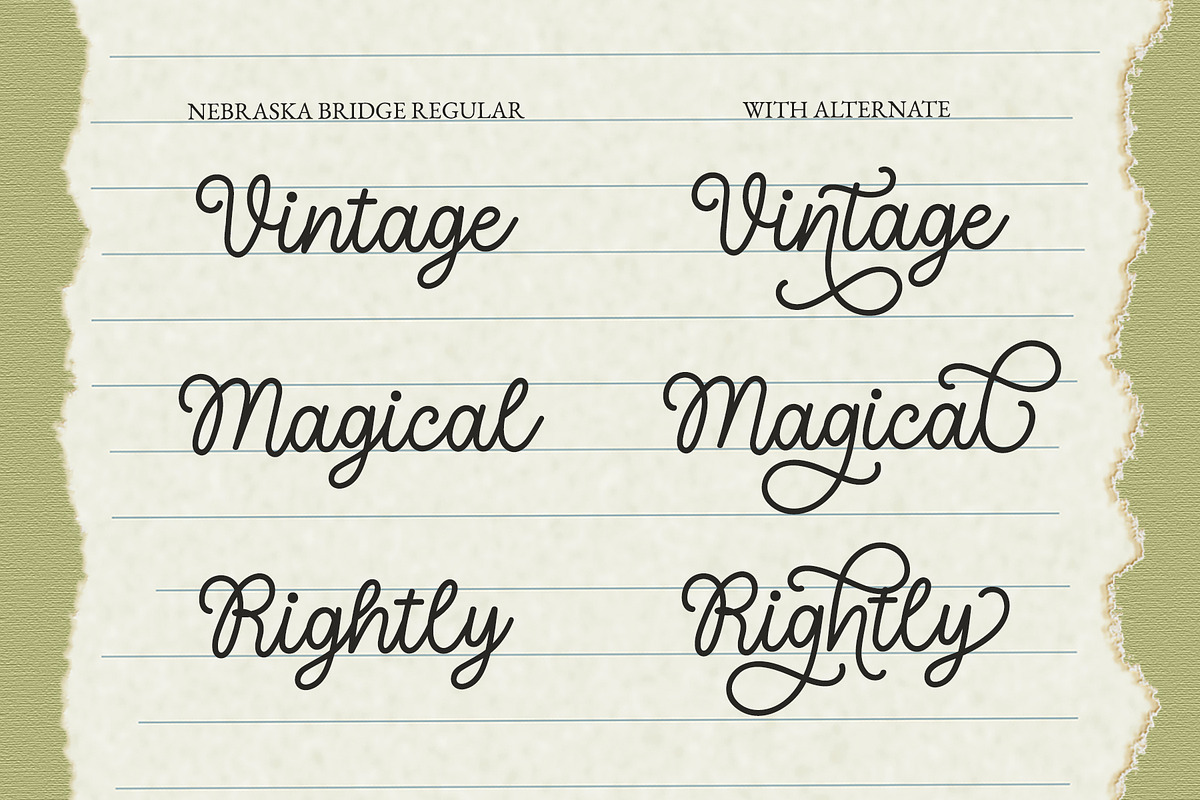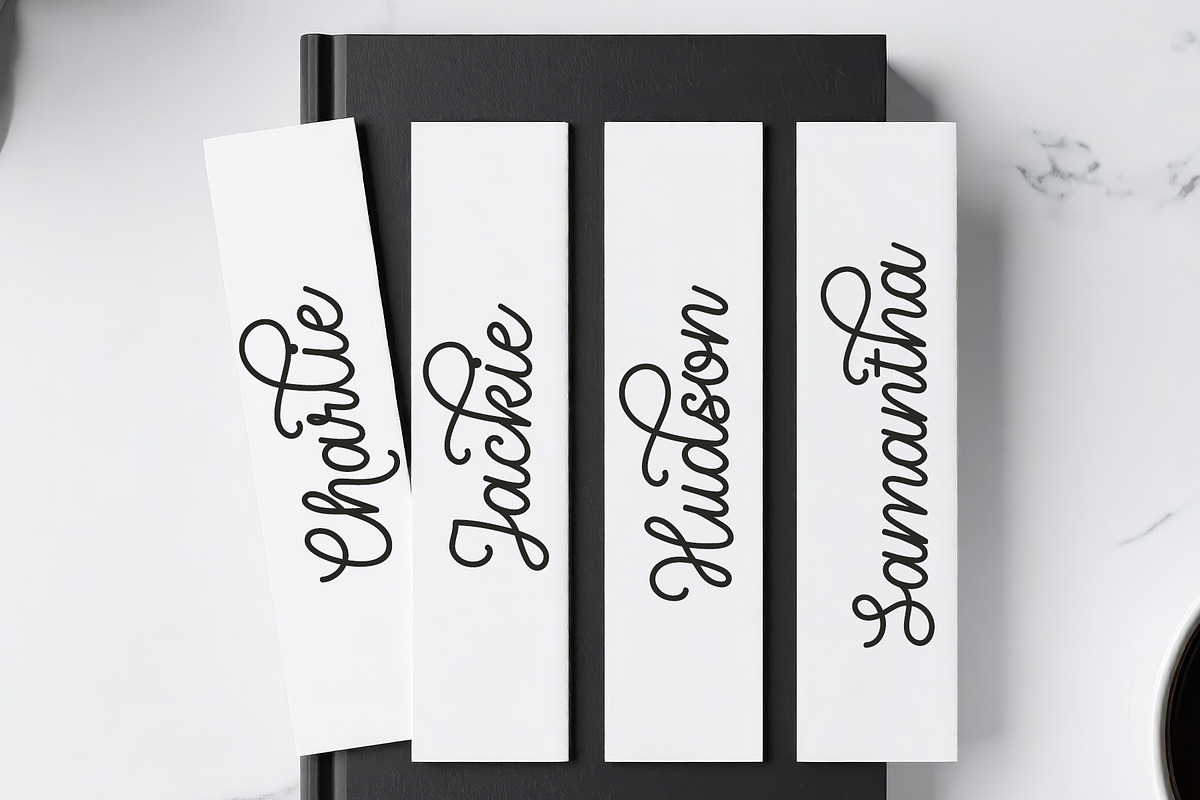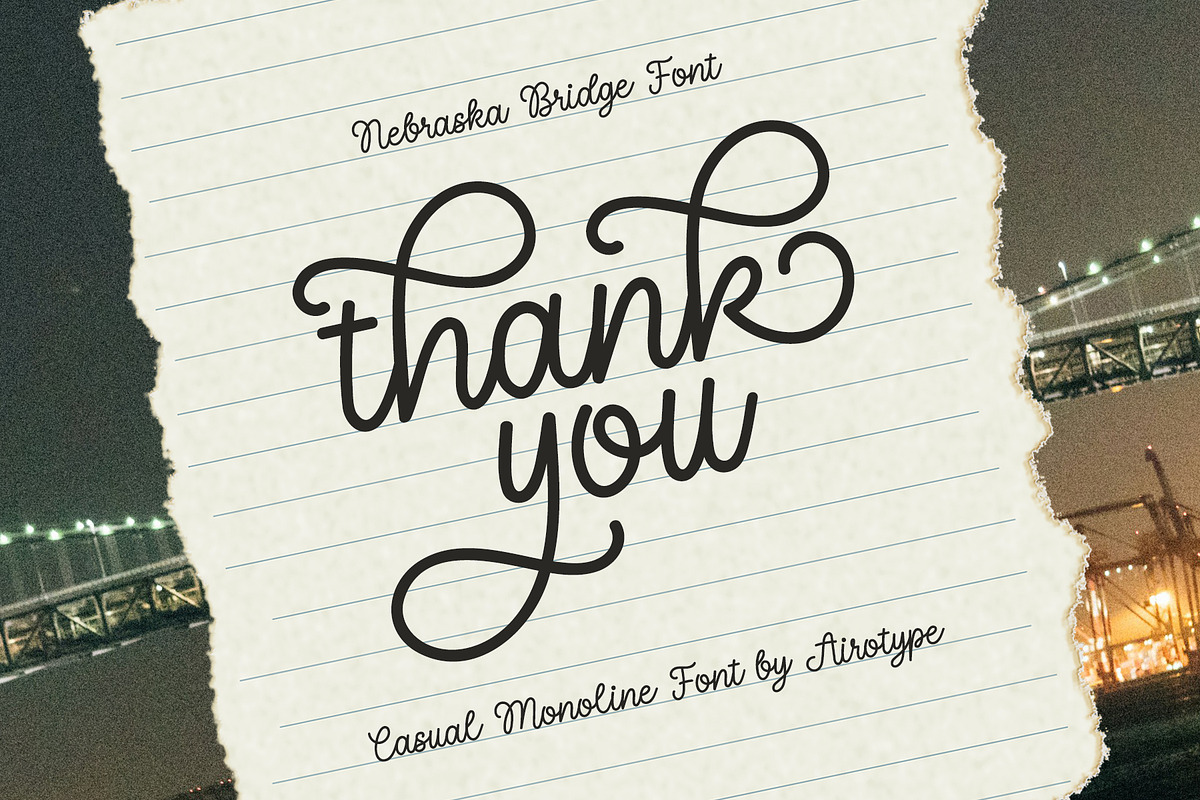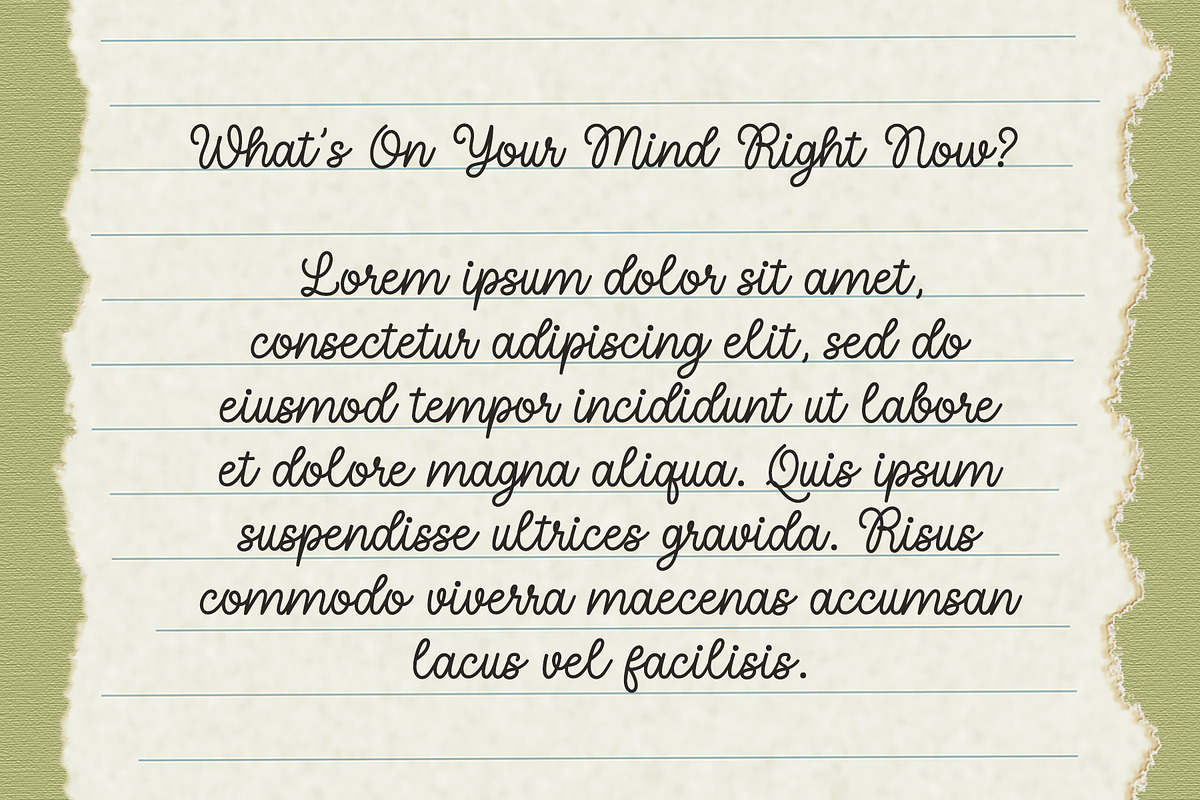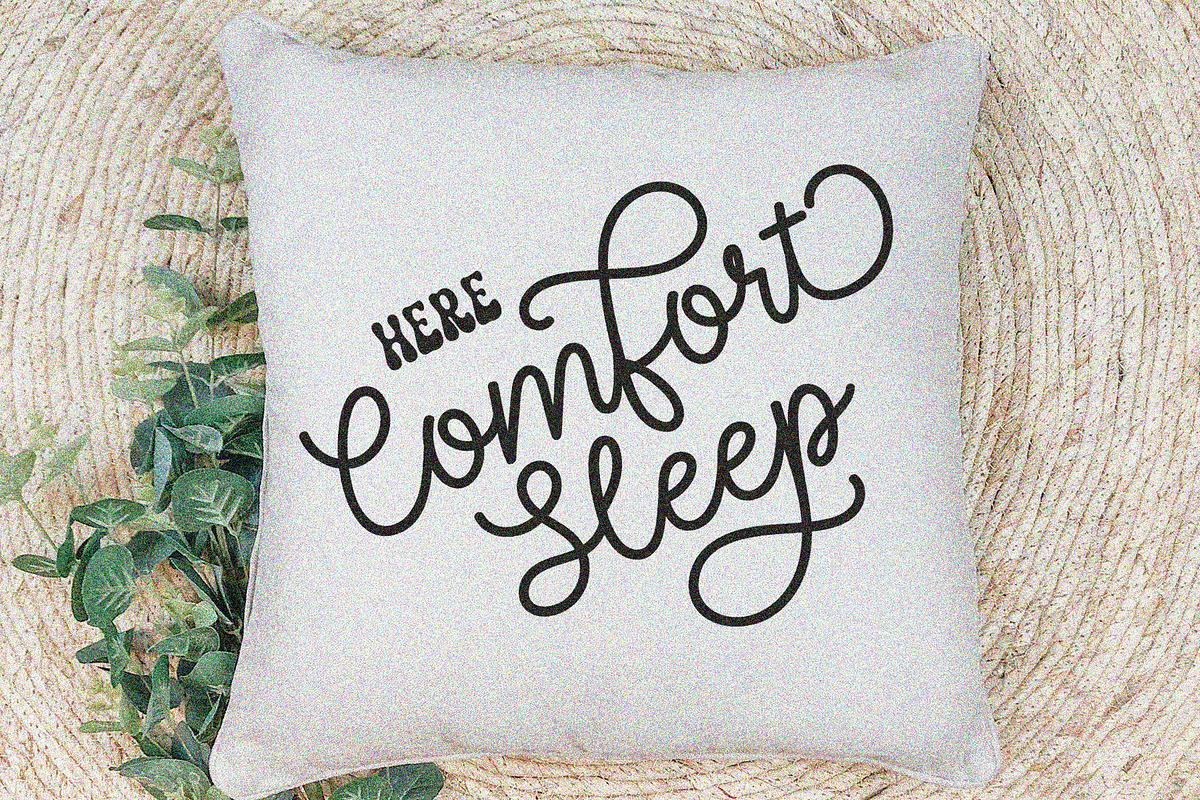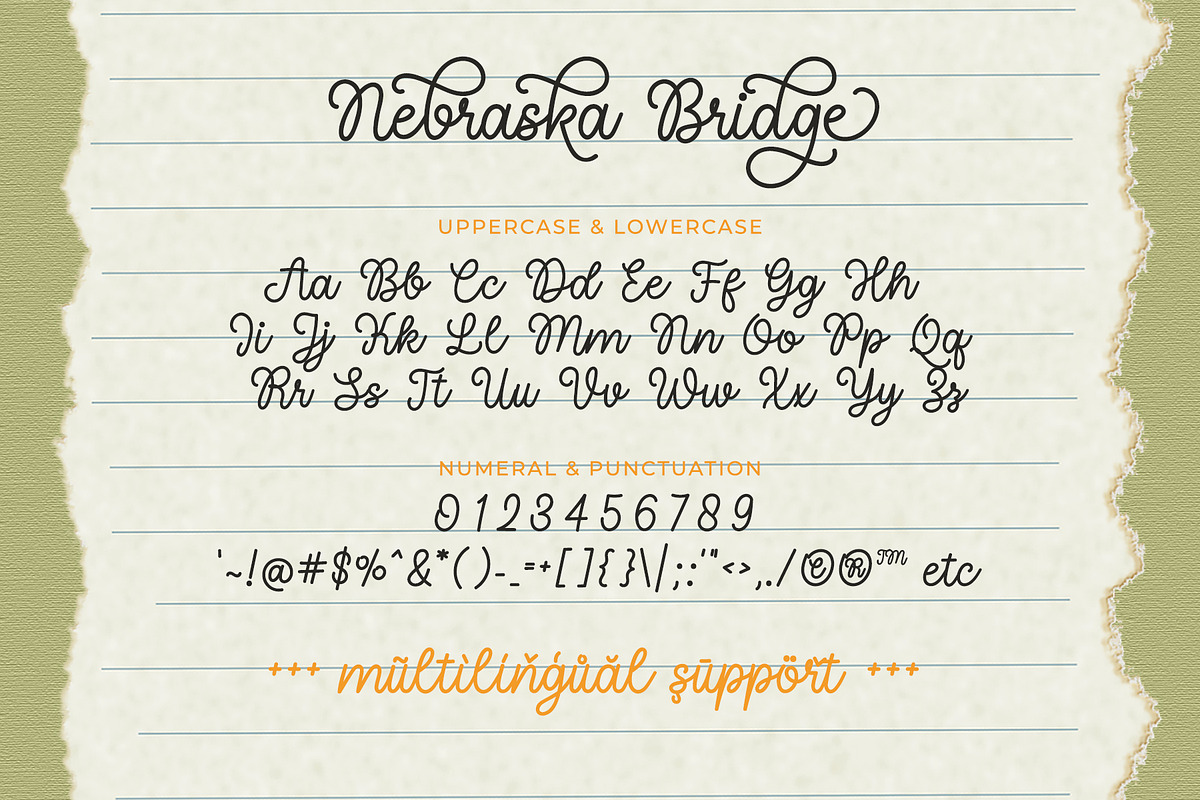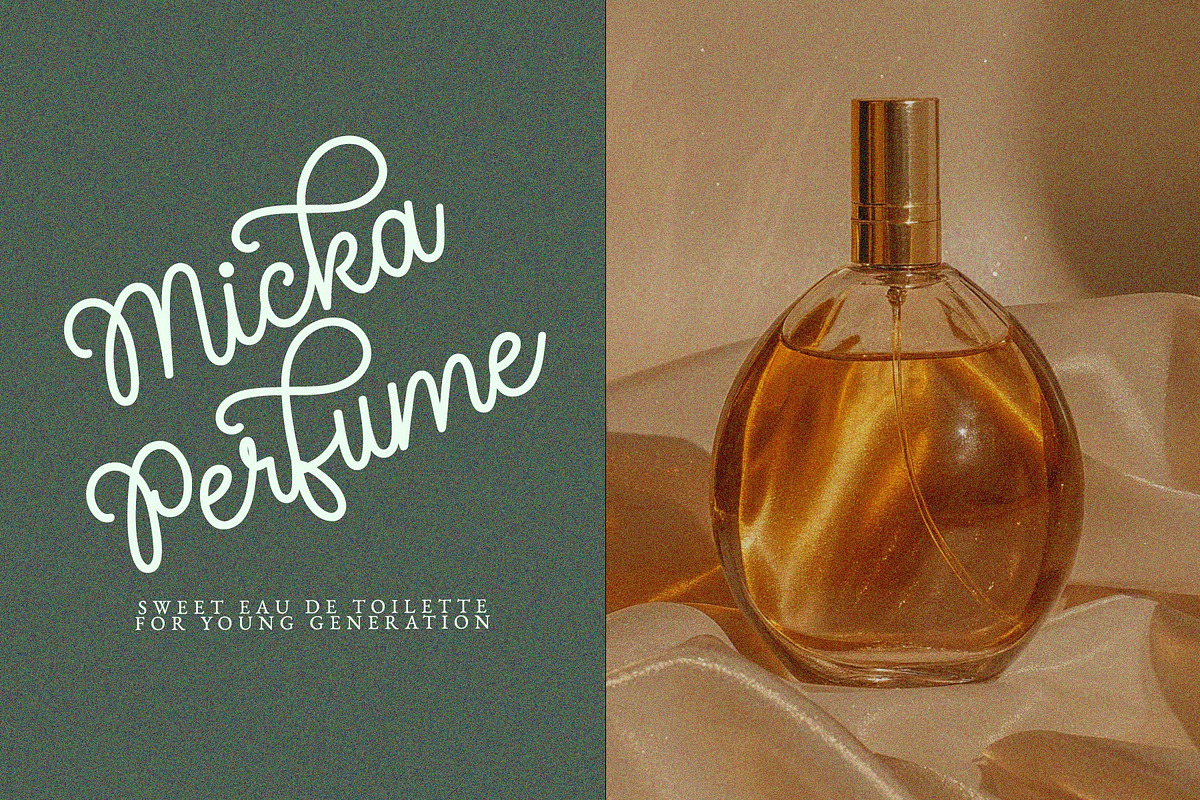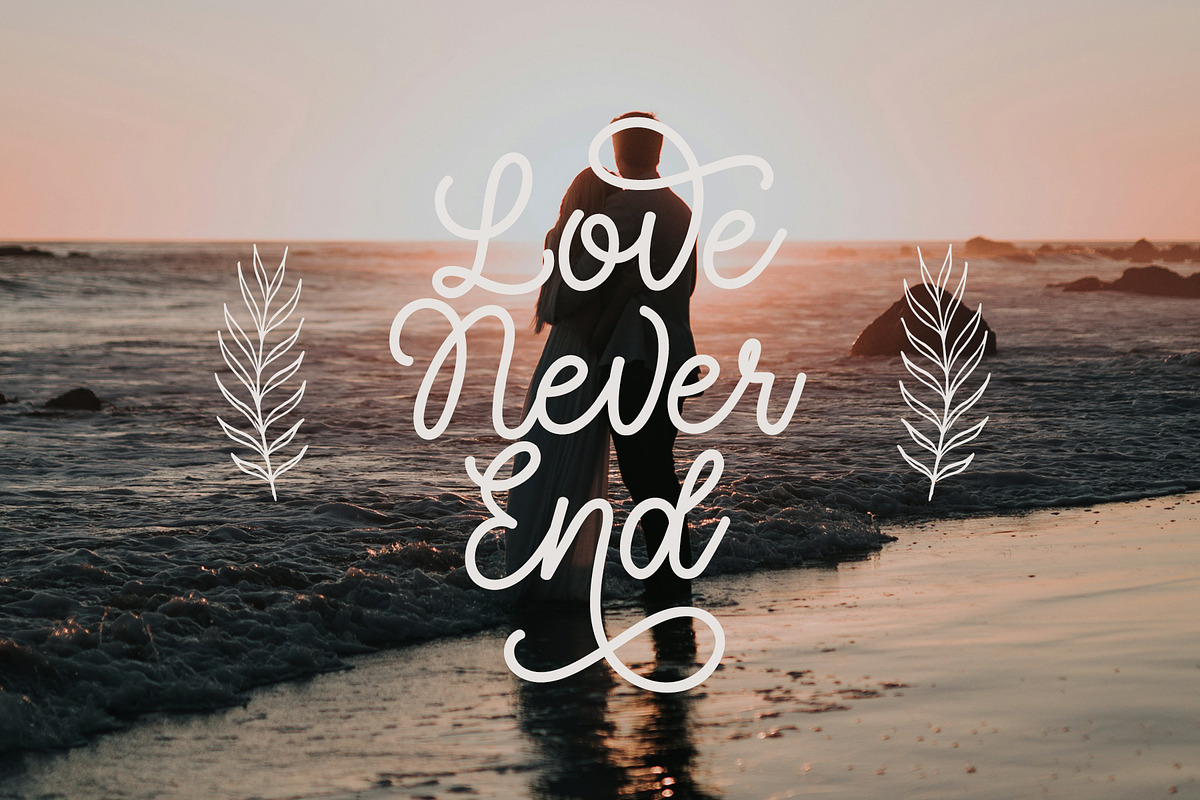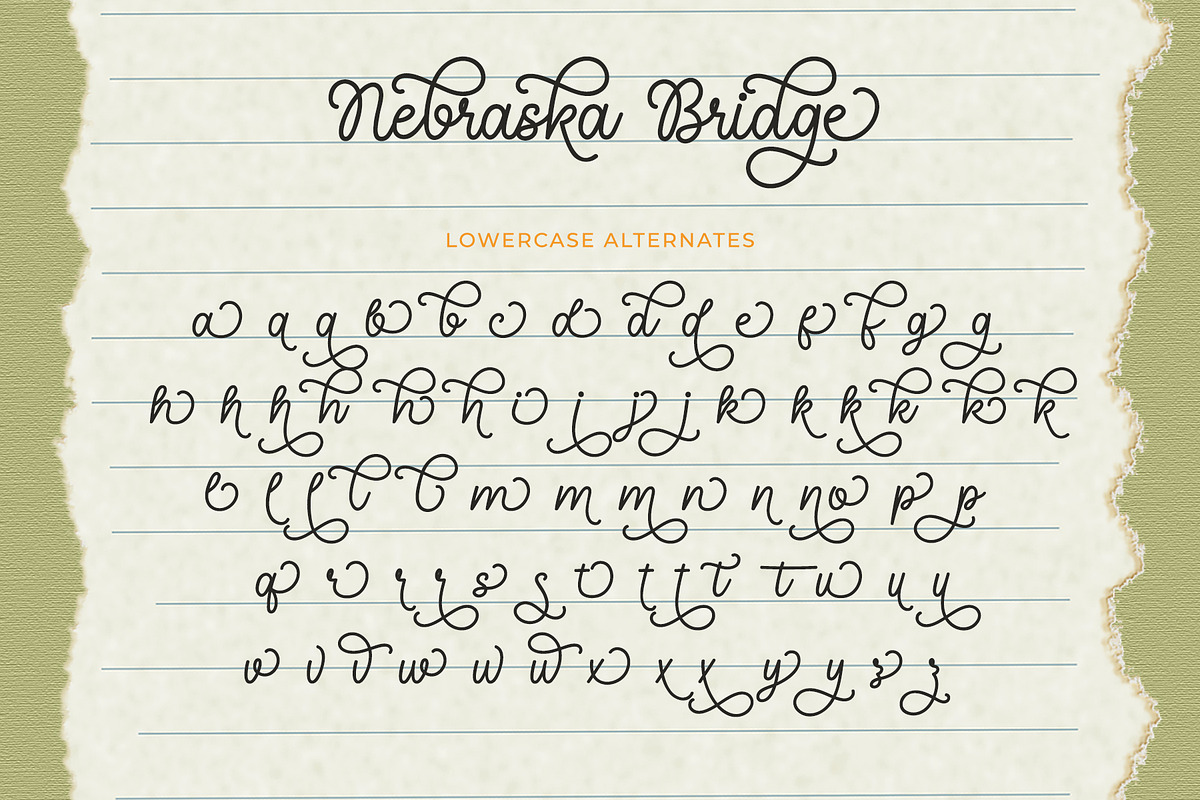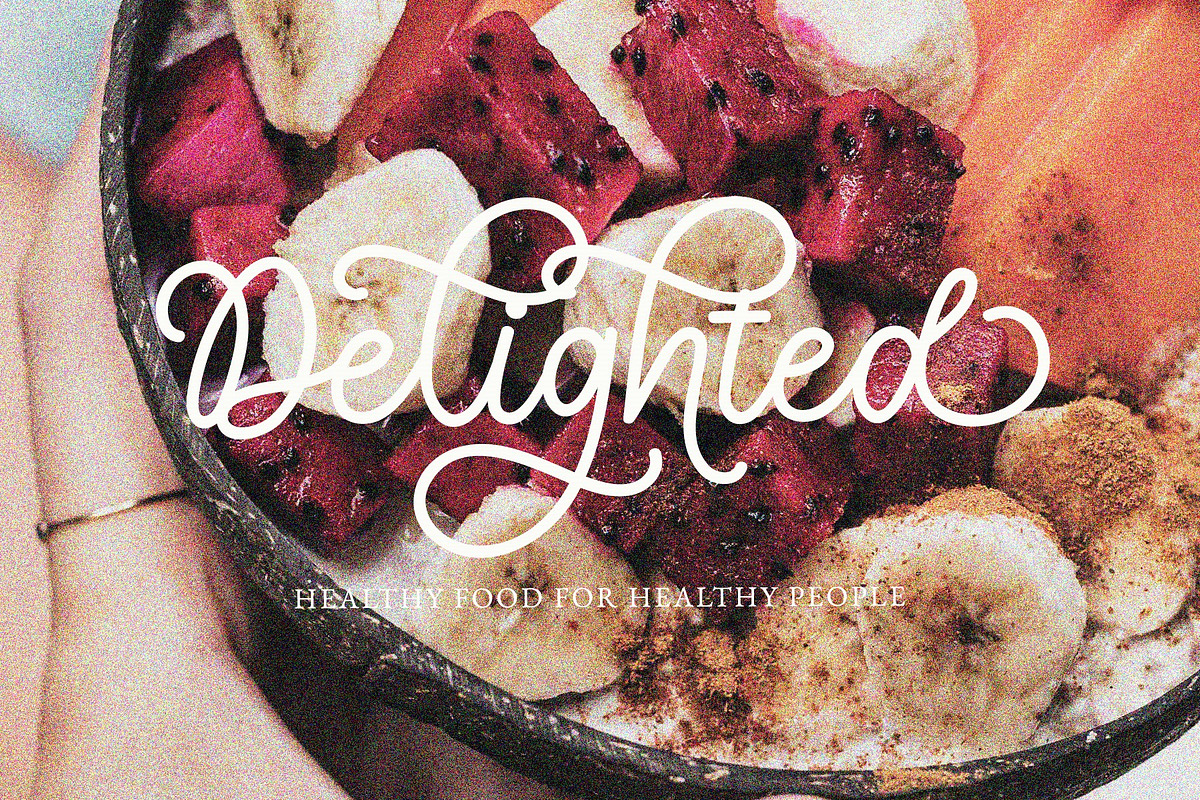
Nebraska Bridge - Monoline Cursive
Nebraska Bridge is cursive script font with regular strokes. This font is neat and crafted meticulously with handdrawn touch.
This monoline font has alternate characters to provide more options in designing. The swirl character will enhance the elegance and modern.
Nebraska Bridge is pretty to be used for wide ranges of design, such as wedding, invitation, birthday card, christmas, posterm quotes, social media, crafting, keychain, tumbler, branding, logo, and many more.
- Uppercase and Lowercase (including lowercase extra alternates glyphs)
- Most Multilingual Accent